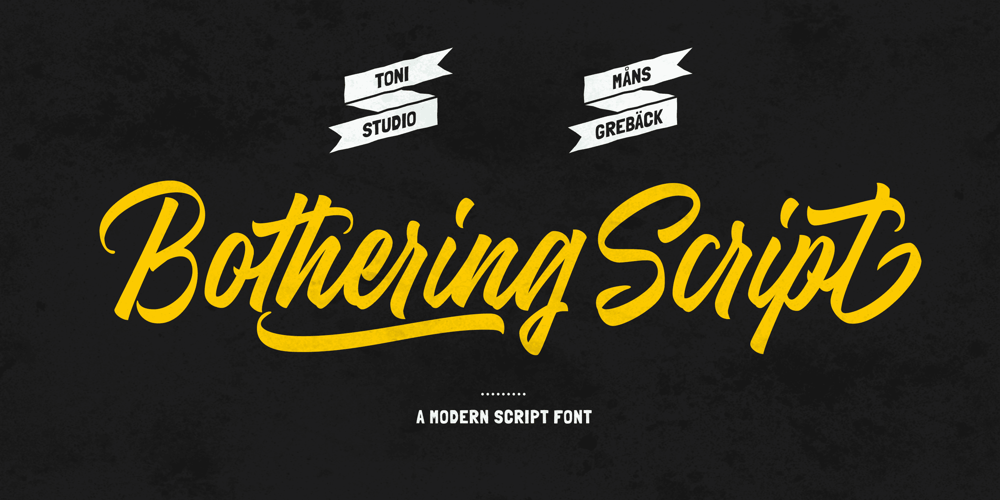
Bothering Script Font Family was designed by Måns Grebäck and published by Mans Greback. Bothering Script contains 1 styles and family package options. Bothering Script is a high-quality calligraphy typeface. This brush font’s energetic style and vivid movements instantly gets the attention of its spectator, and the flow has an harmonic rhythm while maintaining activity, sharpness and clarity.Drawn and created by Mans Greback and Toni Studio in 2022, this handwritten lettering has a wild appearance and a strong personality. Use it for a youthful product layout or a fresh logotype. Use underscore _ to make a swash. Example: Wonder_womanUse multiple underscores for different swashes. Example: Cool___ness(Download required.)The font is built with advanced OpenType functionality and has a guaranteed top-notch quality, containing stylistic and contextual alternates, ligatures and more features; all to give you full control and customizability. It has extensive lingual support, covering all Latin-based languages, from Northern Europe to South Africa, from America to South-East Asia. It contains all characters and symbols you’ll ever need, including all punctuation and numbers.